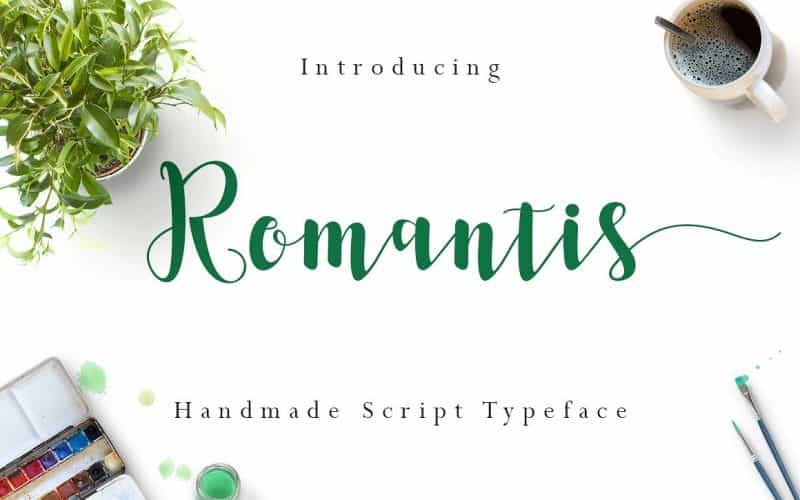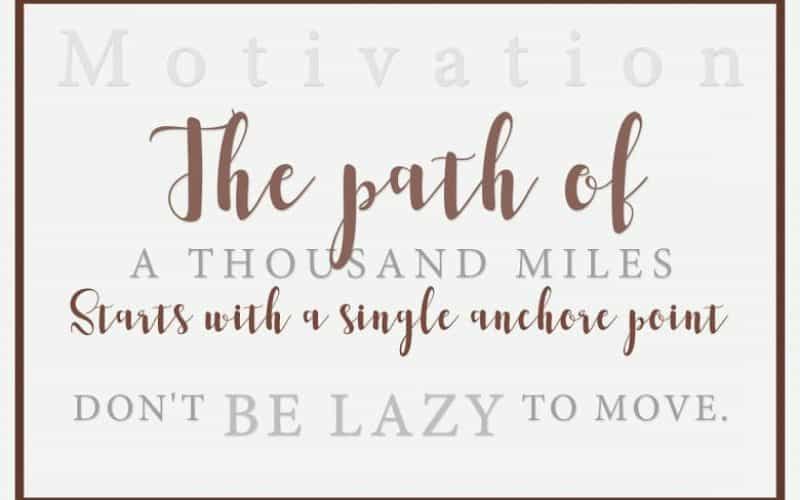
Romantis Script, a connecting script, has a high aesthetic, and style factor. It specially designed for placing fashion, e-commerce brands, trend/blogging, or any business that wants to seem classy, chic, and clean. It suits logotypes from high-end luxurious brands to magazines’ headlines, greeting cards, invitations, posters, ads, and the myriad of web usage.